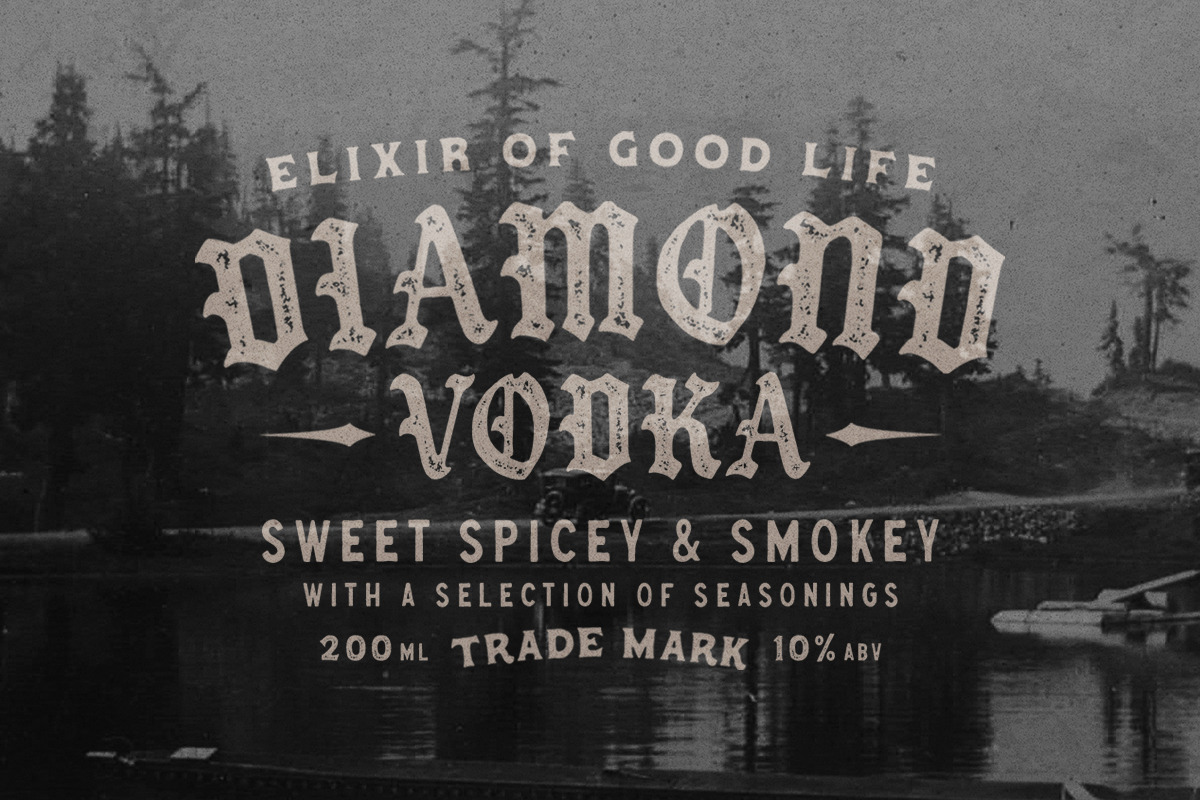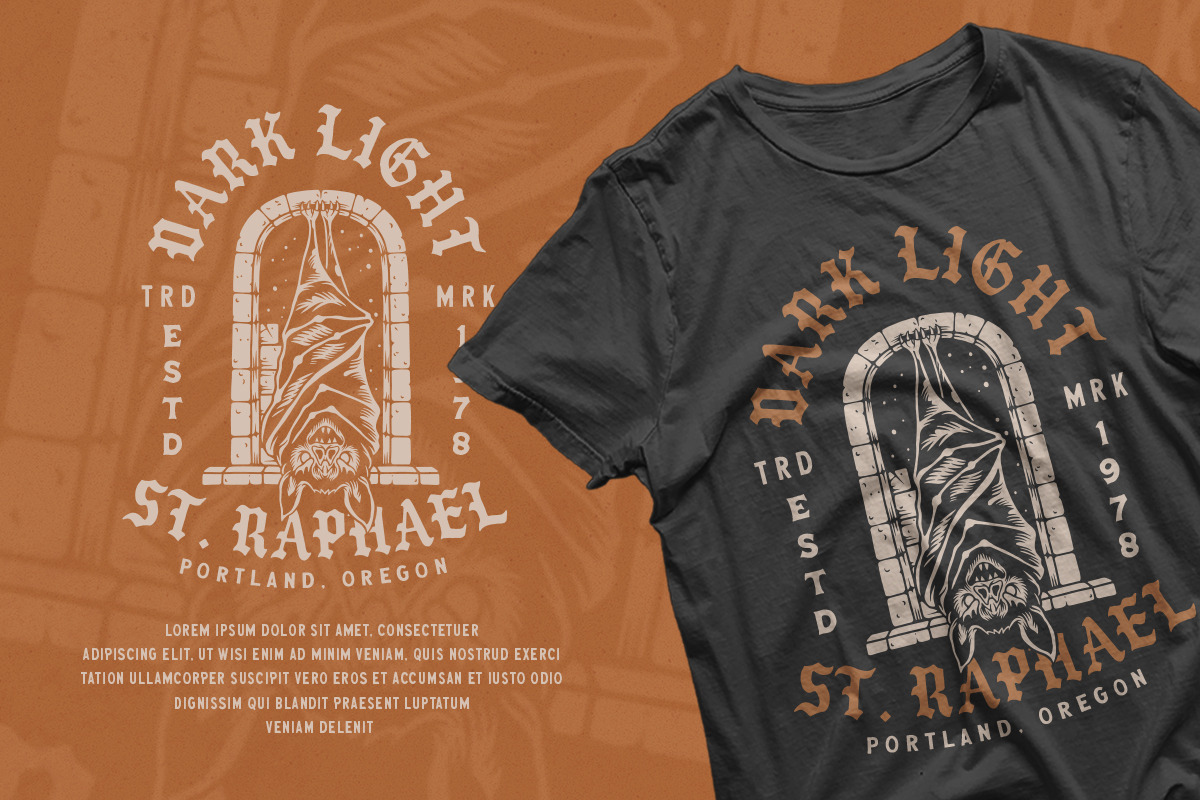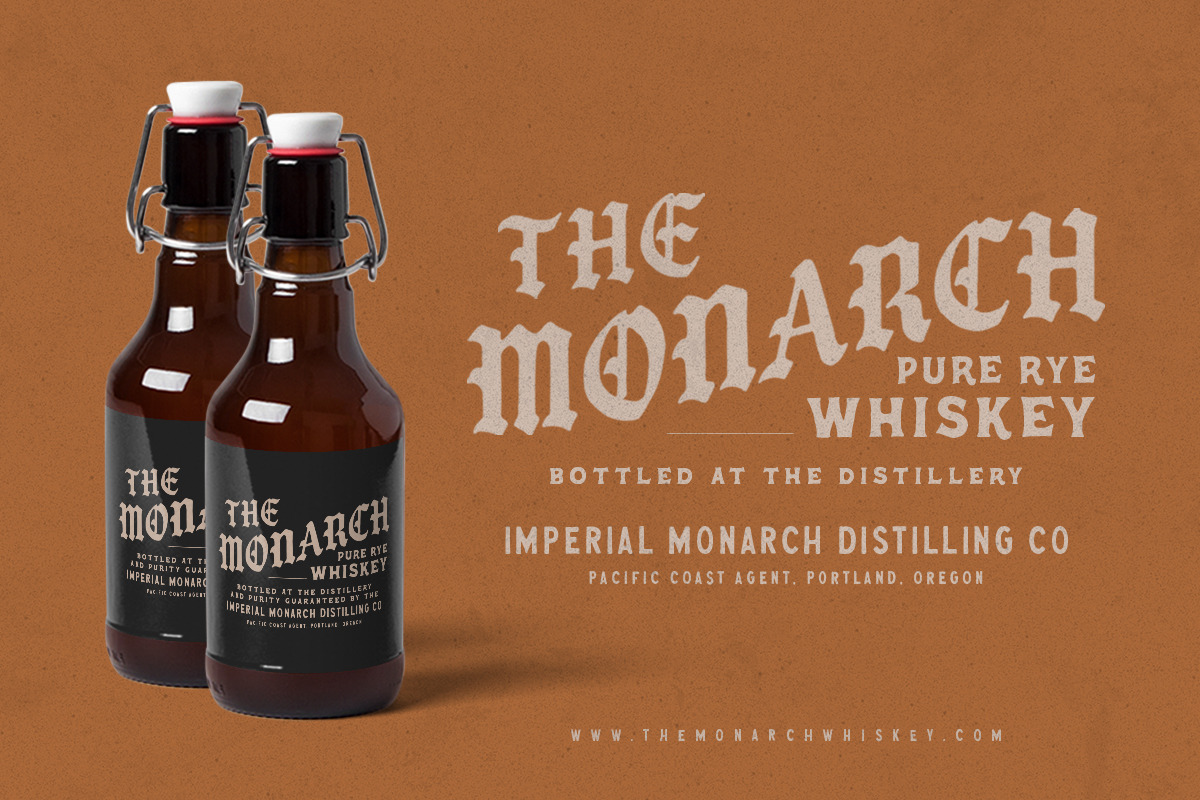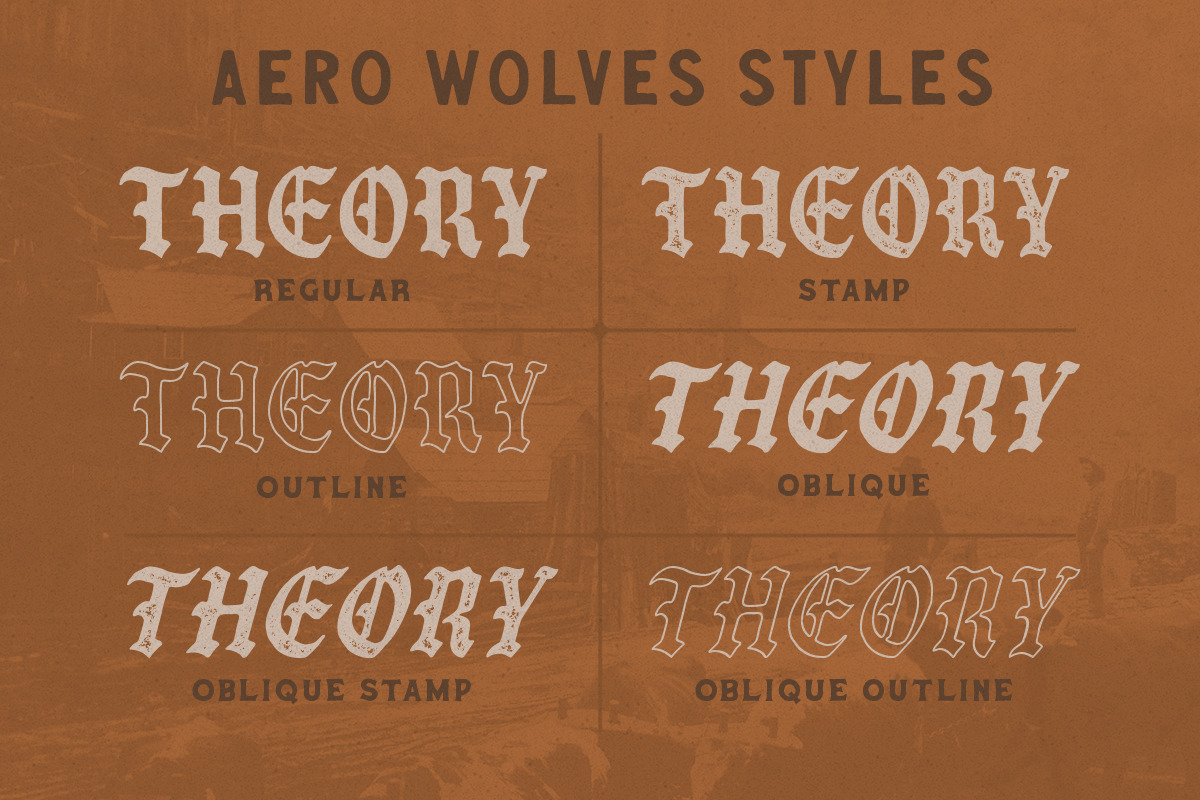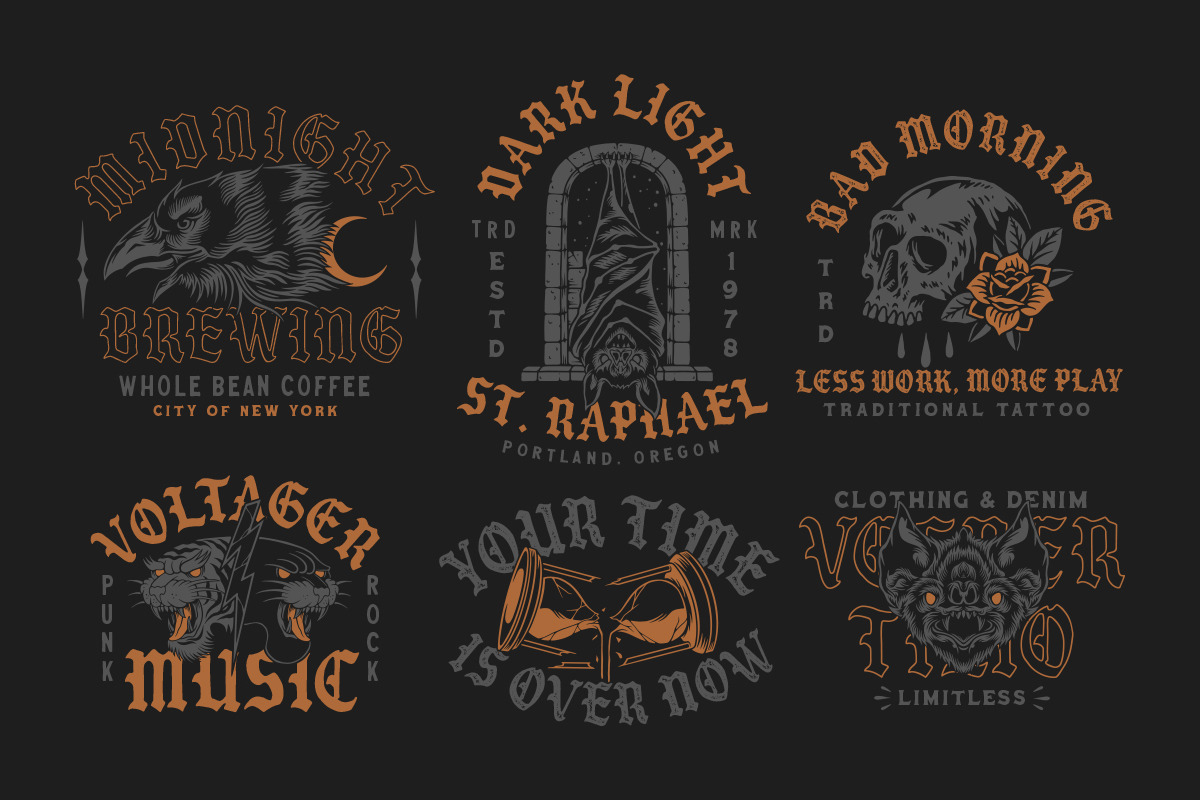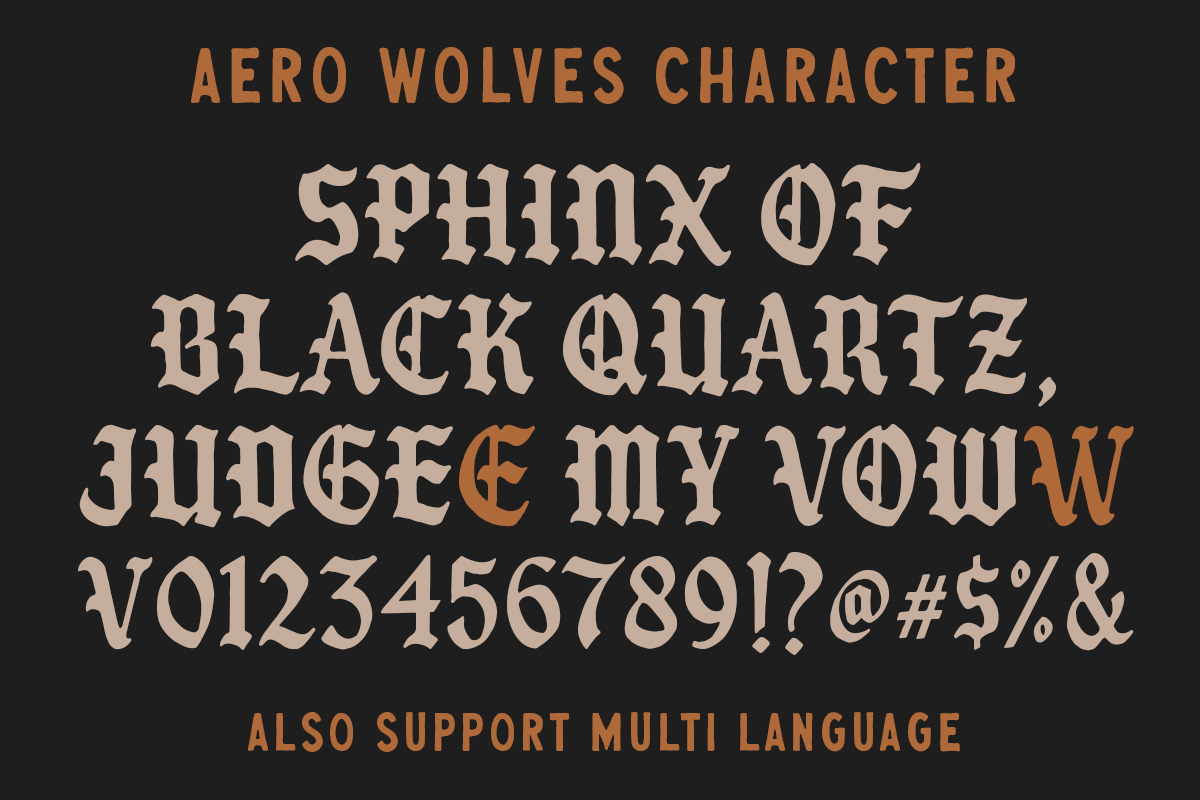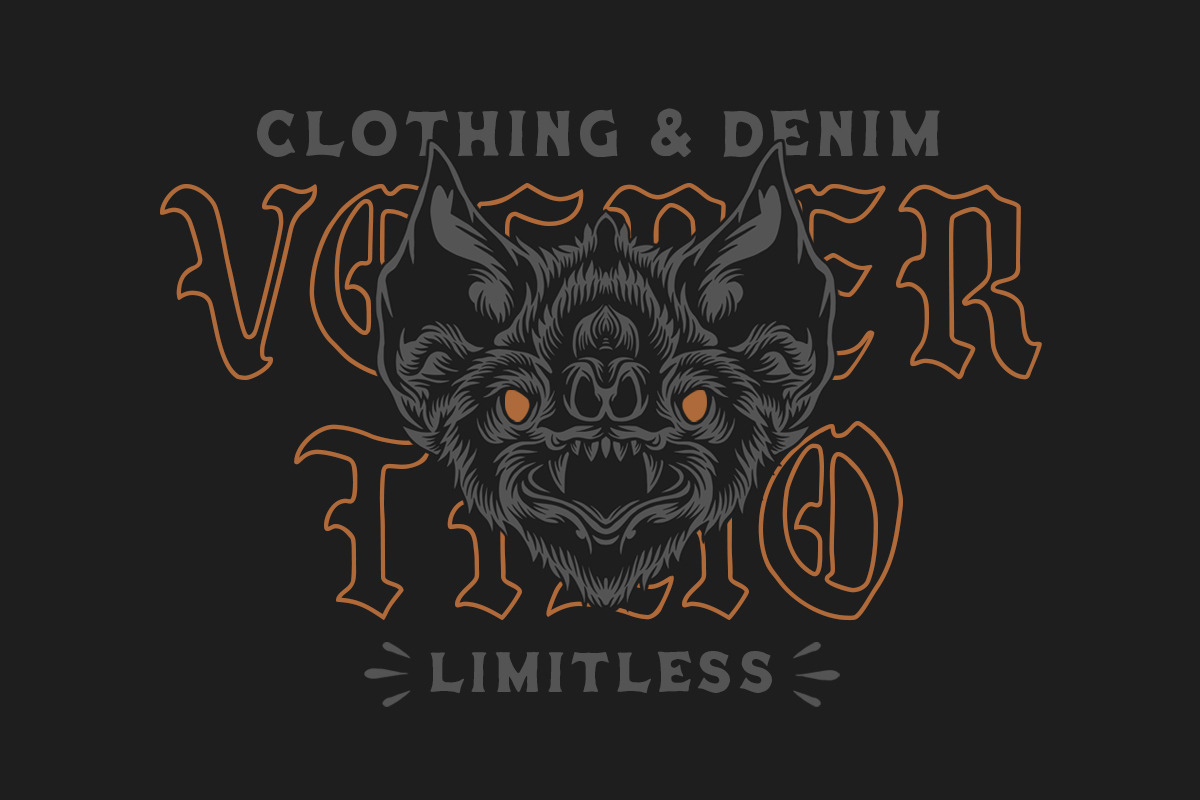
Aero Wolves + Extras
Aero Wolves is a organic blackletter with handdrawn feel. Comes with regular, stamp, oblique and outline styles. Also come with FREE illustrations and editable logo to make better design. This typefaces is perfect for people looking for vintage aesthetic and dark feel. Suitable for any graphic designs such as branding materials, t-shirt, print, logo, poster, t-shirt, quotes .etc